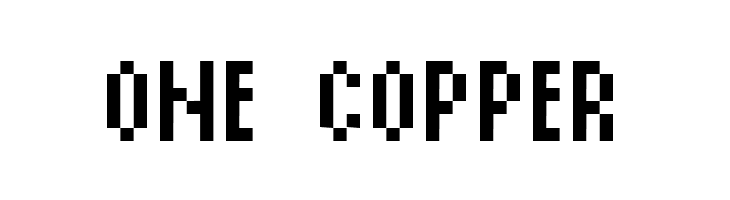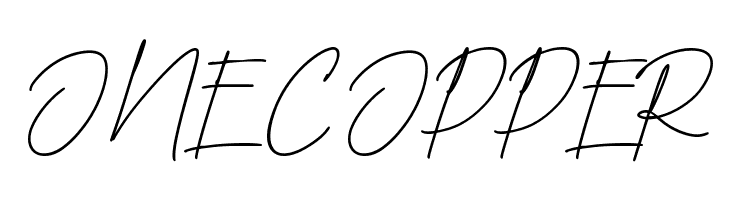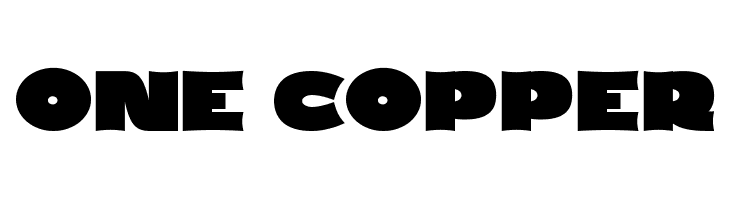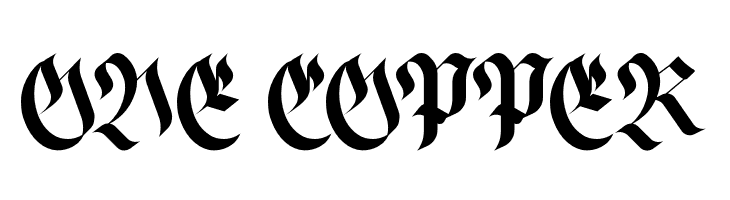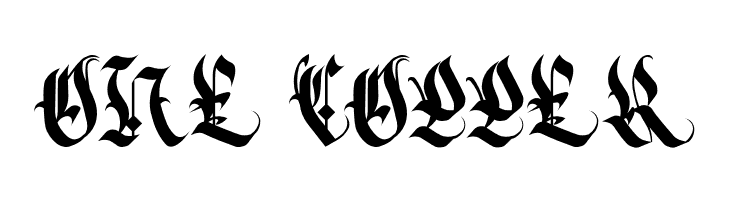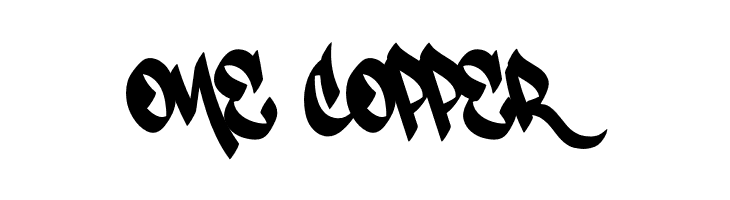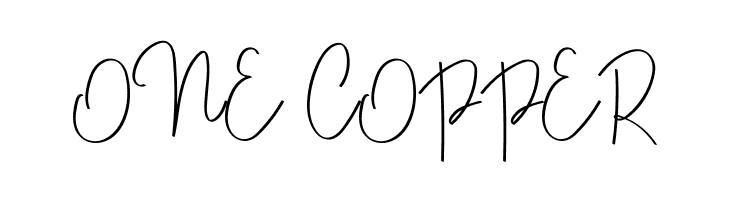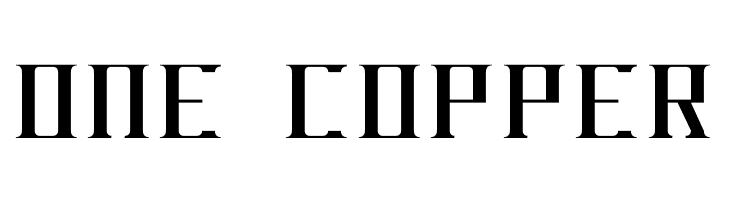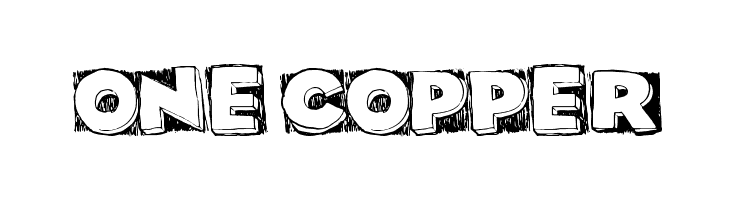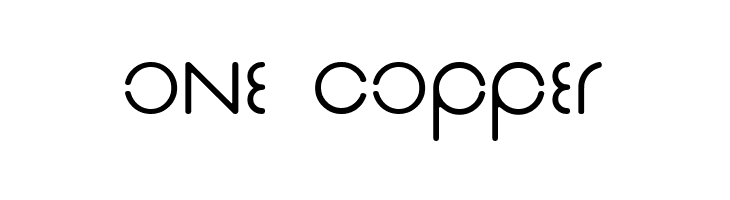
( Fonts by Figuree Studio )
A bold, calligraphic font with dramatic strokes and sharp edges.
( Fonts by Blackletter Studio )
A bold, gothic Blackletter font with sharp, angular lines and intricate detailing.
( Fonts by Blackletter Studio )
A gothic, ornate font with high contrast and elaborate flourishes.
( Fonts by Darkwell Family )
Decorative handwritten font with playful elegance.
( Fonts by Otto Maurer Design )
An organic, branch-like font with a dark, mysterious aesthetic.
An intricate, nature-inspired decorative font with vine-like embellishments.
( Fonts by Otto Maurer Design )
A decorative, bold font with a twisted, shadowed design ideal for dramatic displays.
( Fonts by Otto Maurer Design )
A bold, decorative font with an eerie, twisted branch design.
A fluid and elegant handwritten font with a natural cursive style.
A playful, handwritten font with flowing, interconnected letterforms.
A bold, geometric font with strong, angular lines and a modern aesthetic.
( Fonts by Typography in Decay )
A modern, geometric font with rounded edges and consistent stroke width.
A playful, rounded font with a hand-drawn, whimsical style.
A bold, geometric font with strong, block-like characters and a modern aesthetic.
A bold, geometric font with a playful and decorative style.
A bold, geometric font with a strong, industrial design.
A bold, geometric font with high contrast and angular shapes, perfect for impactful headlines.
A bold, decorative font with a gradient effect and a retro-modern style.
A bold, hollow font with a 3D effect, perfect for vintage-inspired designs.
A bold, geometric decorative font with a three-dimensional outline.
( Fonts by Southype )
A retro digital display-inspired font with bold, blocky characters in rectangular frames.
( Fonts by Dieter Schumacher )
A bold, geometric font with a futuristic and modern aesthetic.
( Fonts by Dieter Schumacher )
A bold, italicized font with sharp angles and a futuristic style.
A modern, geometric font with a clean and minimalist design.
A sleek, modern font with a minimalist and elegant design.
A sleek, modern font with thin, elegant lines and a minimalist aesthetic.
( Fonts by Xerographer Fonts )
A bold, hand-drawn font with a playful, sketch-like appearance.
A flowing, cursive font with elegant curves and a handwritten style.
A cursive, handwritten font with elegant, flowing curves.
A bold, geometric font with a futuristic, digital aesthetic.